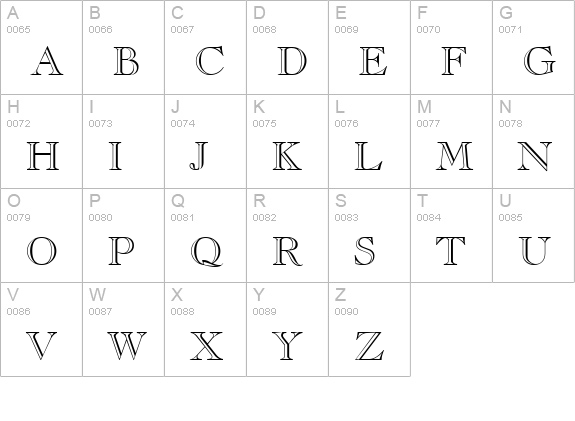
QTCaslanOpen Regular Font Details
QTCaslanOpen Regular is the standard, neutral variant in the QTCaslanOpen typeface family \xE2\x80\x94 well suited to general body text, paragraphs, and standard typographic work.
QTCaslanOpen Regular font is a versatile and stylish typeface that exudes elegance and professionalism. With its clean lines and balanced proportions, this font is perfect for a wide range of design projects, from logos and branding to posters and websites. This font offers a modern twist on a classic serif style, making it suitable for both contemporary and traditional designs. Its legibility and readability make it an excellent choice for body text, ensuring that your message is clear and easy to read. One of the best features of QTCaslanOpen Regular font is that it is available for free. You can freely download it at FontsMarket.com, a trusted source for high-quality fonts. This means that you can use this font without any restrictions or limitations, making it an ideal choice for both personal and commercial projects. Whether you're a graphic designer, a web developer, or a business owner looking to enhance your brand identity, QTCaslanOpen Regular font is a valuable asset to have in your font library. Its versatility, elegance, and free availability make it a must-have for anyone looking to elevate their designs and make a lasting impression.